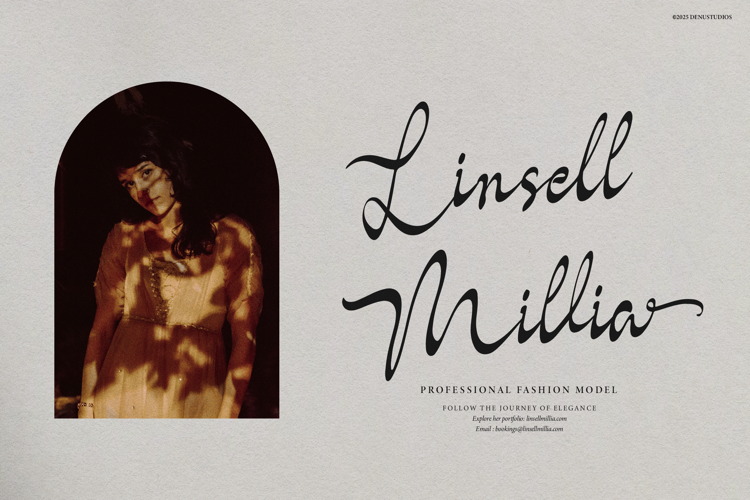
Feriska Monathy Font
About Feriska Monathy Font
Feriska Monathy | Classic Signature Font is suitable for any projects such as: logos, branding projects, homeware designs, product packaging, mugs, quotes, posters, shopping bags, t-shirts, book covers, name card, invitation cards, greeting cards, label, photography, watermark, special events, and all your other lovely projects that need a Classic Signature Font taste.